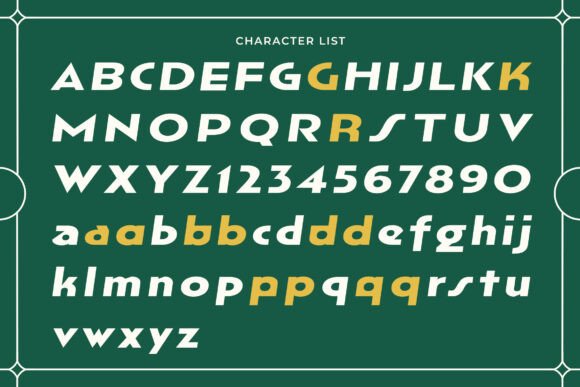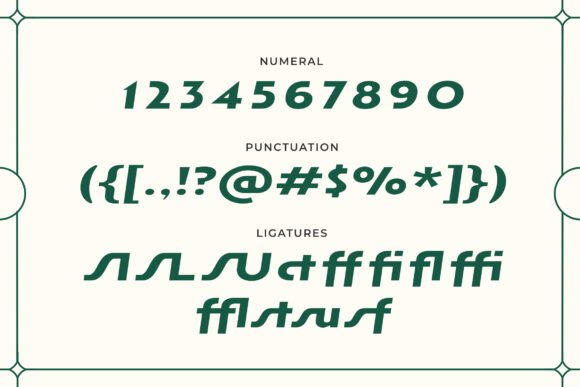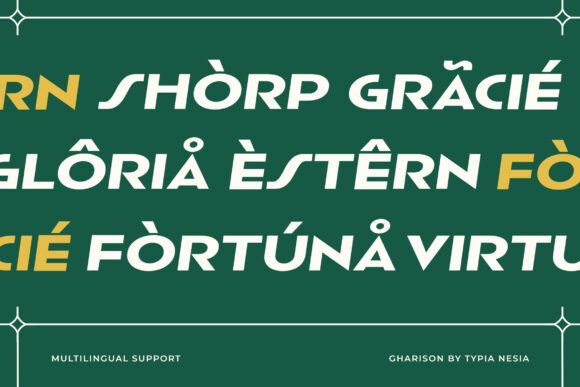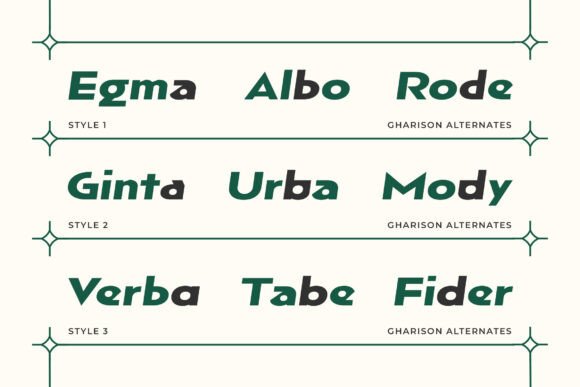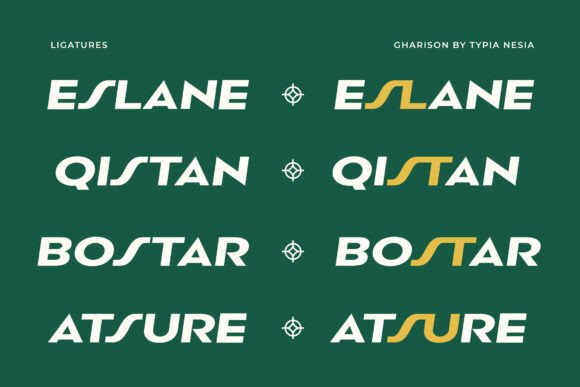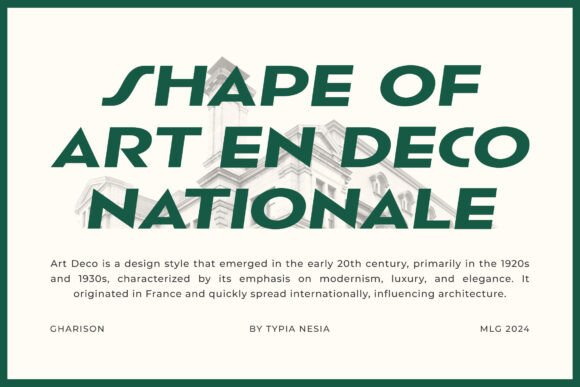
Gharison Font: A Modern Art Deco Italic Font for Sophisticated Designs
In the world of typography, fonts play a crucial role in conveying the tone and aesthetic of a design. For designers and crafters looking to add a touch of vintage elegance with a modern twist to their projects, Gharison Font is an excellent choice. This modern Art Deco italic font combines the sophistication of the Art Deco era with a contemporary edge, making it perfect for a wide range of applications.
The Art Deco Inspiration
Art Deco, a design style that emerged in the 1920s, is characterized by its geometric shapes, metallic materials, and ornate decorations. It exudes luxury, glamour, and sophistication. Gharison Font draws inspiration from this iconic era, incorporating its distinctive elements into a modern italic font. The result is a unique and refined typeface that captures both classic and contemporary vibes.
Characteristics of Gharison Font
Gharison Font boasts several characteristics that make it an attractive choice for designers. Its italicized forms bring movement and fluidity to any design, while its sophisticated aesthetic adds a touch of elegance. The font’s Art Deco roots are evident in its geometric shapes and ornate details, which give it a luxurious feel. Whether used for headings, titles, or body text, Gharison Font is sure to elevate any design.
Use Cases for Gharison Font
Gharison Font’s versatility makes it suitable for a wide range of applications. Here are some of the ideal use cases for this modern Art Deco italic font:
- Luxury and Historical Branding: Gharison Font’s vintage elegance and sophisticated aesthetic make it perfect for luxury and historical branding projects. It adds a touch of classic sophistication to any brand identity.
- Editorial Layouts: The font’s refined aesthetic and elegant forms make it an excellent choice for editorial layouts, such as fashion magazines and upscale publications.
- Packaging Design: Gharison Font’s luxurious feel and modern twist make it ideal for high-end packaging design, adding a touch of sophistication to any product.
- Upscale Invitations: The font’s elegant and refined aesthetic makes it perfect for upscale invitations, such as wedding invitations, galas, and other formal events.
- Fashion Magazines: Gharison Font’s modern Art Deco style and sophisticated forms make it an excellent choice for fashion magazines and publications.
- Advertising: The font’s luxurious feel and elegant aesthetic make it perfect for advertising campaigns that require a touch of sophistication and classic elegance.
- Boutique Branding: Gharison Font’s unique blend of vintage and modern elements makes it ideal for boutique branding projects, adding a touch of elegance and sophistication to any brand identity.
- Architectural and Furniture Design: The font’s geometric shapes and ornate details make it perfect for architectural and furniture design projects that require a touch of classic elegance.
- Product Labels: Gharison Font’s luxurious feel and refined aesthetic make it an excellent choice for product labels, adding a touch of sophistication to any product.
Why Choose Gharison Font?
Gharison Font offers several benefits to designers and crafters. Its unique blend of vintage elegance and modern twist makes it a standout choice for any design project. Here are some reasons why you should choose Gharison Font:
- Unique Aesthetic: Gharison Font’s Art Deco inspiration and modern twist give it a unique aesthetic that sets it apart from other fonts.
- Versatility: The font’s versatility makes it suitable for a wide range of applications, from luxury branding to editorial layouts.
- Elegance and Sophistication: Gharison Font’s refined aesthetic and elegant forms add a touch of sophistication to any design.
- Easy to Read: Despite its ornate details, Gharison Font is easy to read, making it perfect for body text and headings.
Gharison Font is a modern Art Deco italic font that combines the vintage elegance of the Art Deco era with a modern twist. Its sophisticated forms, geometric shapes, and ornate details make it perfect for designers and crafters looking to add a touch of luxury and classic elegance to their projects. With its versatility, unique aesthetic, and elegance, Gharison Font is an excellent choice for a wide range of applications, from luxury branding to editorial layouts. Whether you’re looking to create a sophisticated brand identity or add a touch of elegance to your design, Gharison Font is an excellent choice.